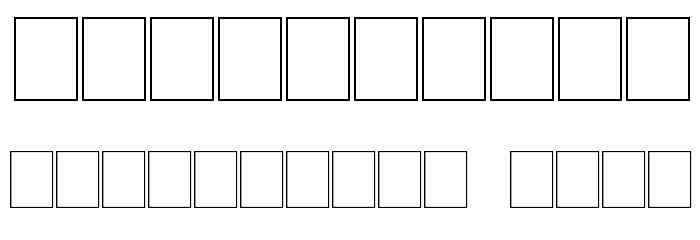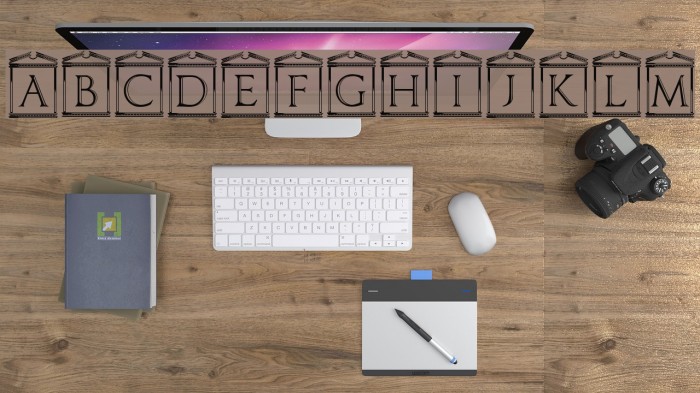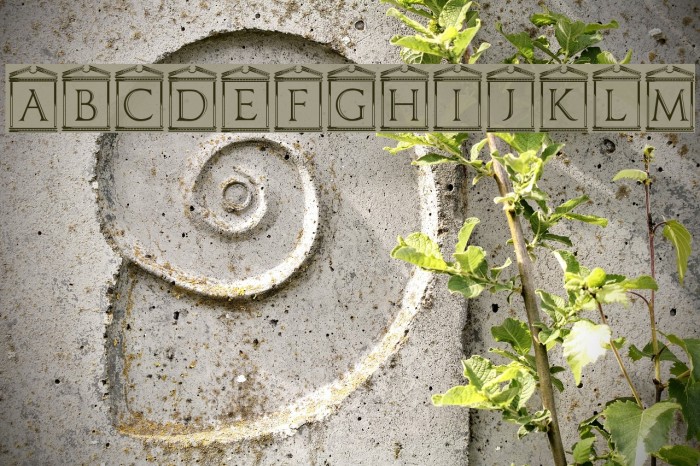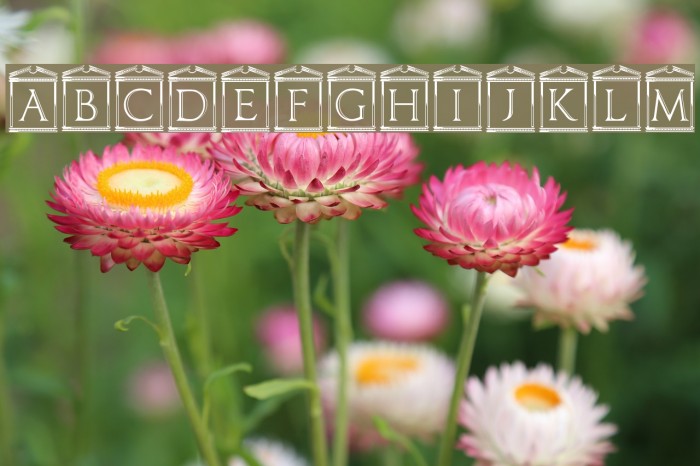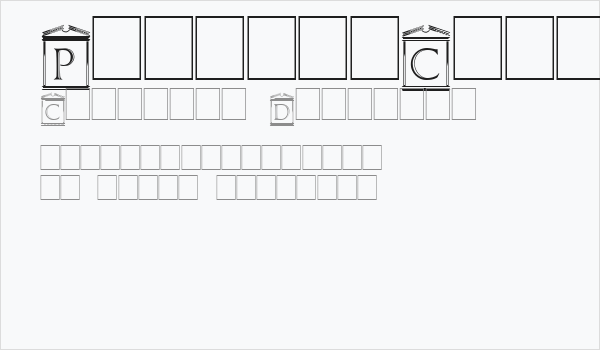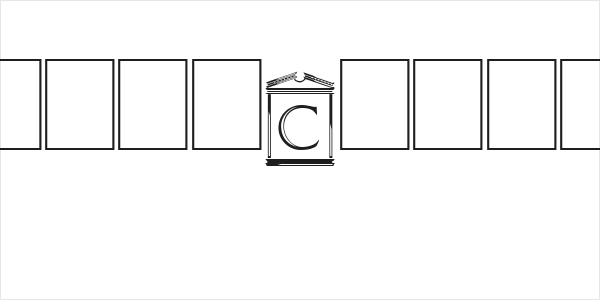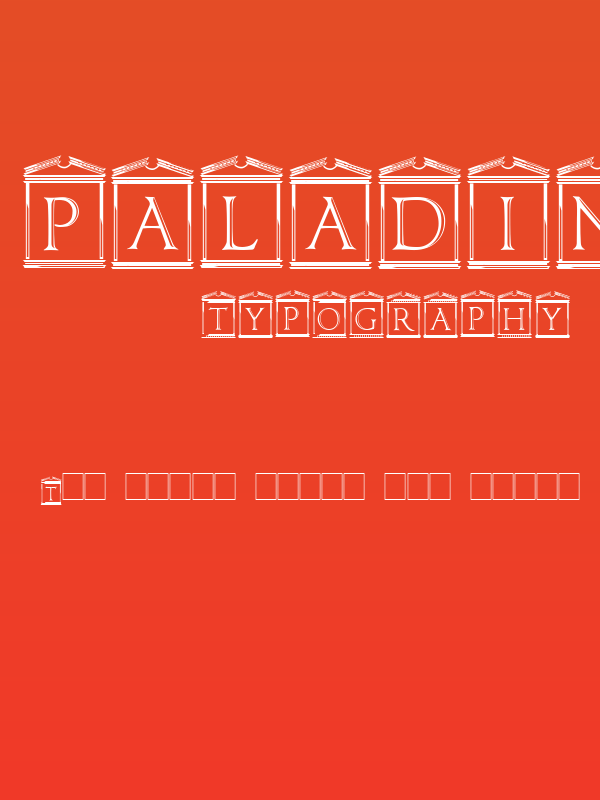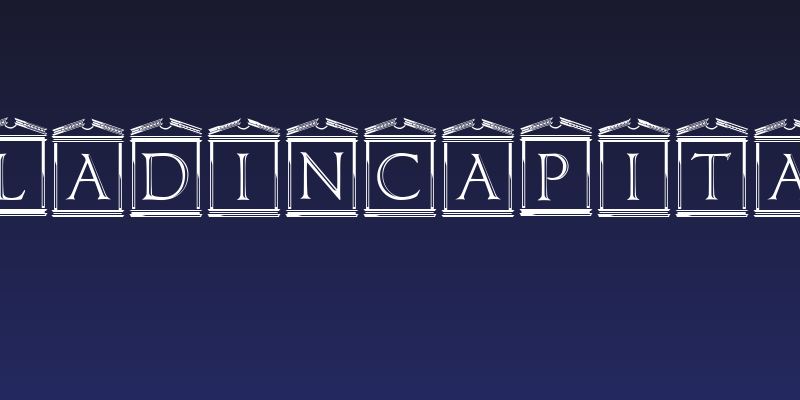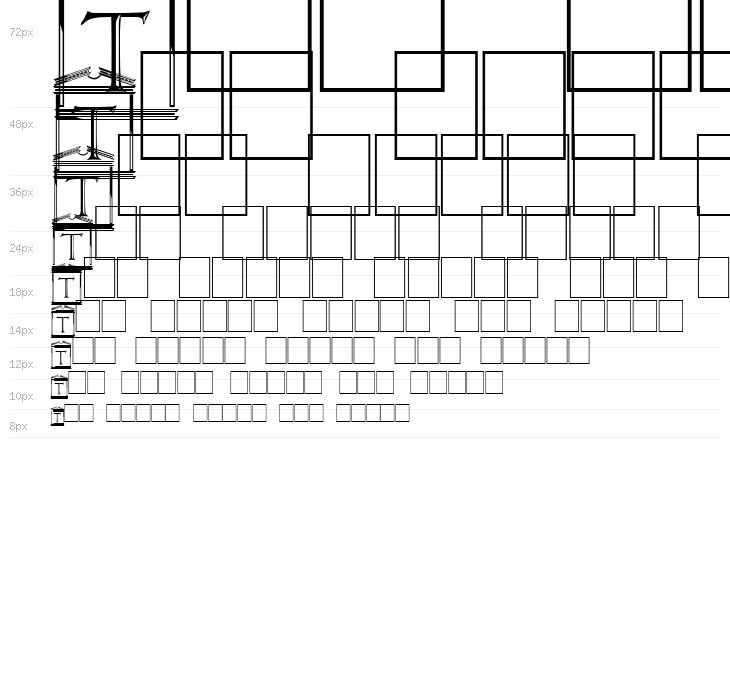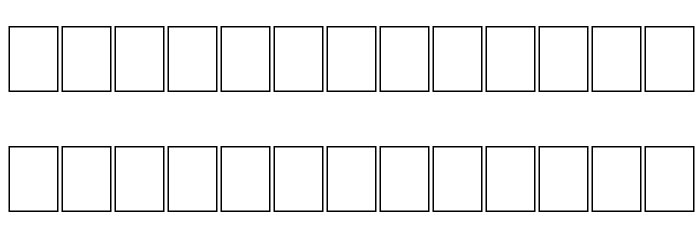
PaladinCapitals Font
PaladinCapitals Description
This font features a classic serif style with a distinct architectural theme. Each letter is encased in a stylized pediment, reminiscent of ancient Greek or Roman structures. The serifs are pronounced, adding a touch of elegance and formality. The overall design is symmetrical and balanced, with a strong emphasis on vertical lines. The font exudes a sense of tradition and authority, making it suitable for projects that require a formal and historical aesthetic. The uppercase letters are the primary focus, with no lowercase or special characters present, emphasizing its use in titles or headings.
| Use Case | Headlines, Titles |
| Proposed Projects | Ideal for historical documents, formal invitations, book covers, or any project requiring a classical and authoritative look. |